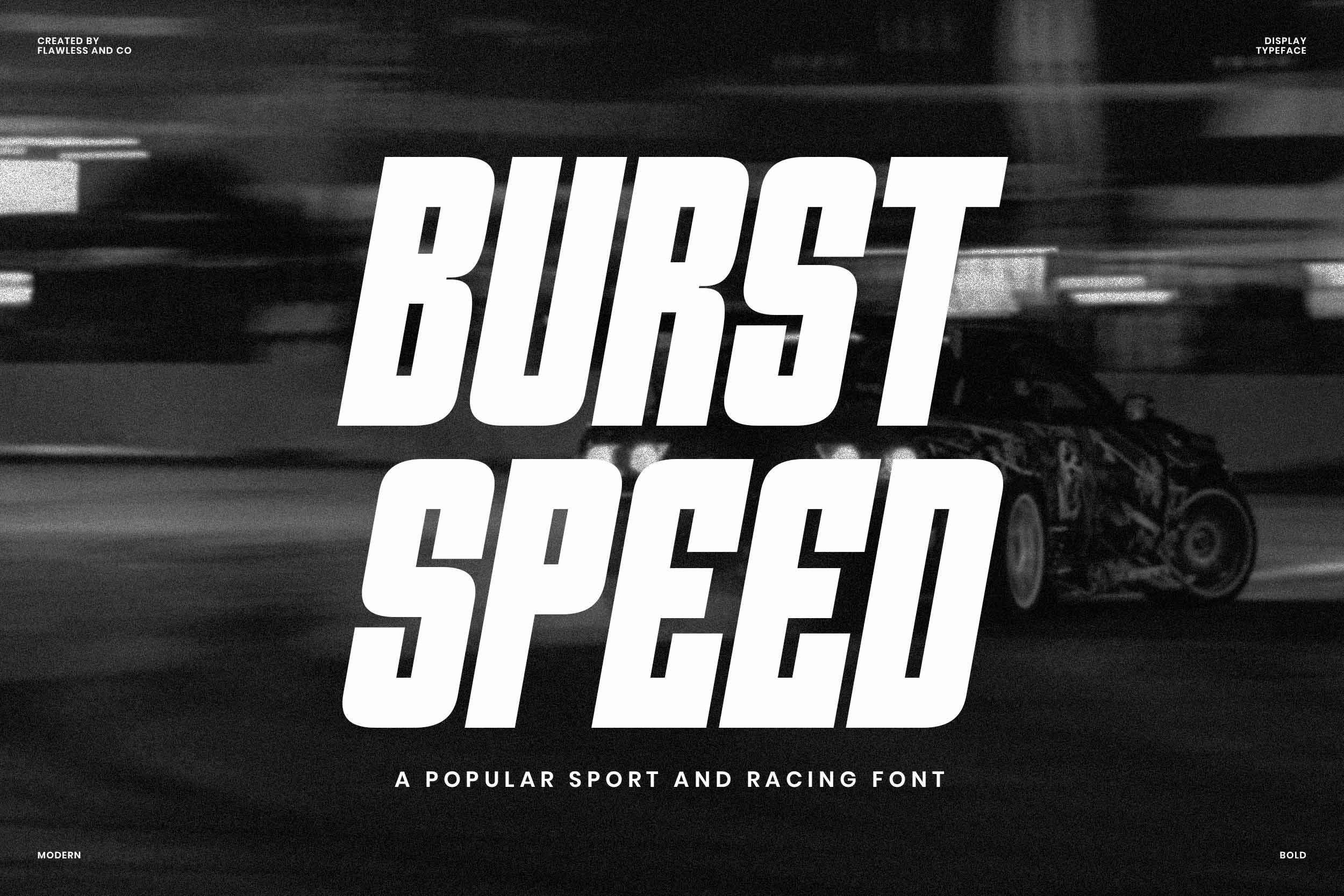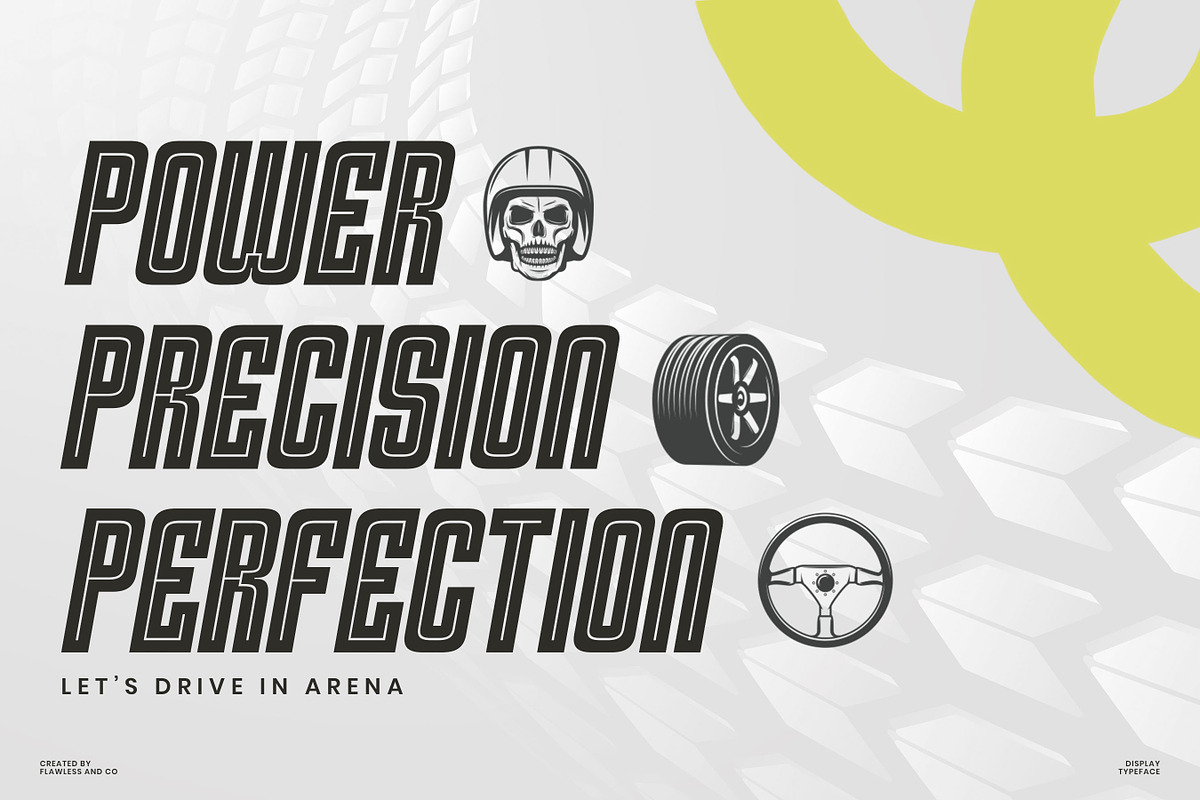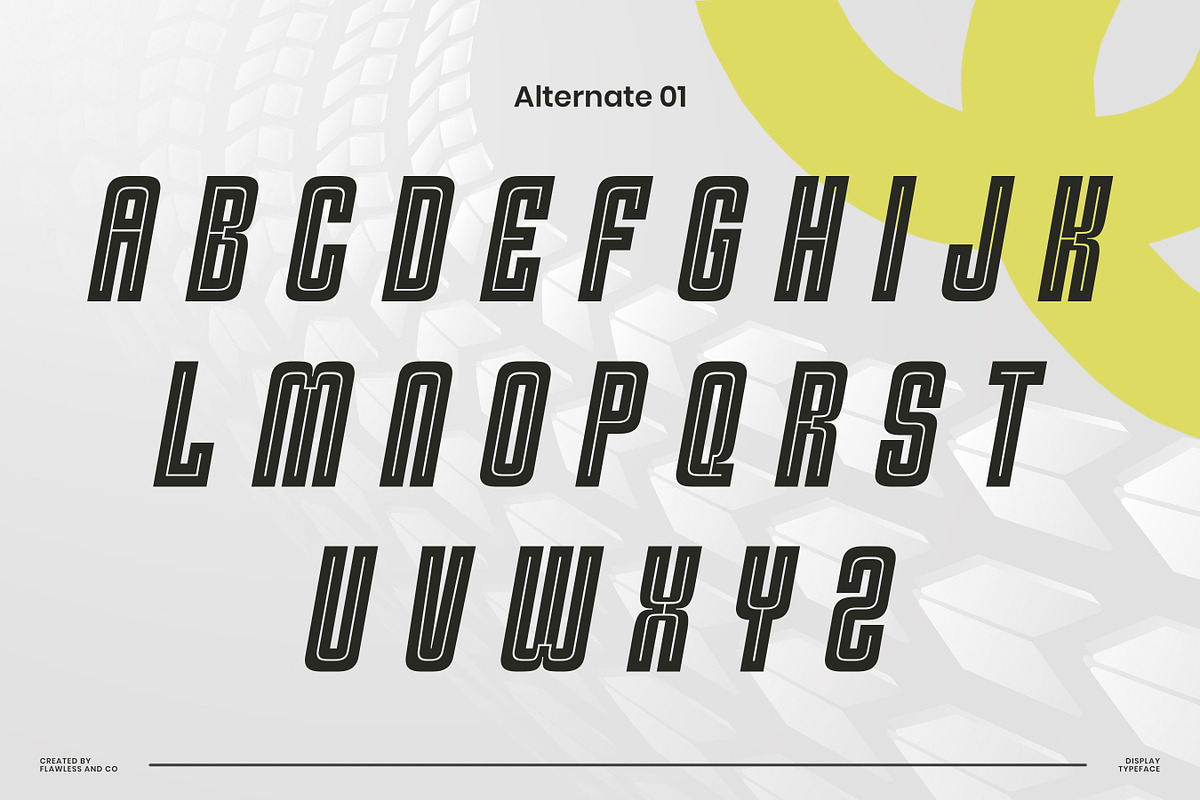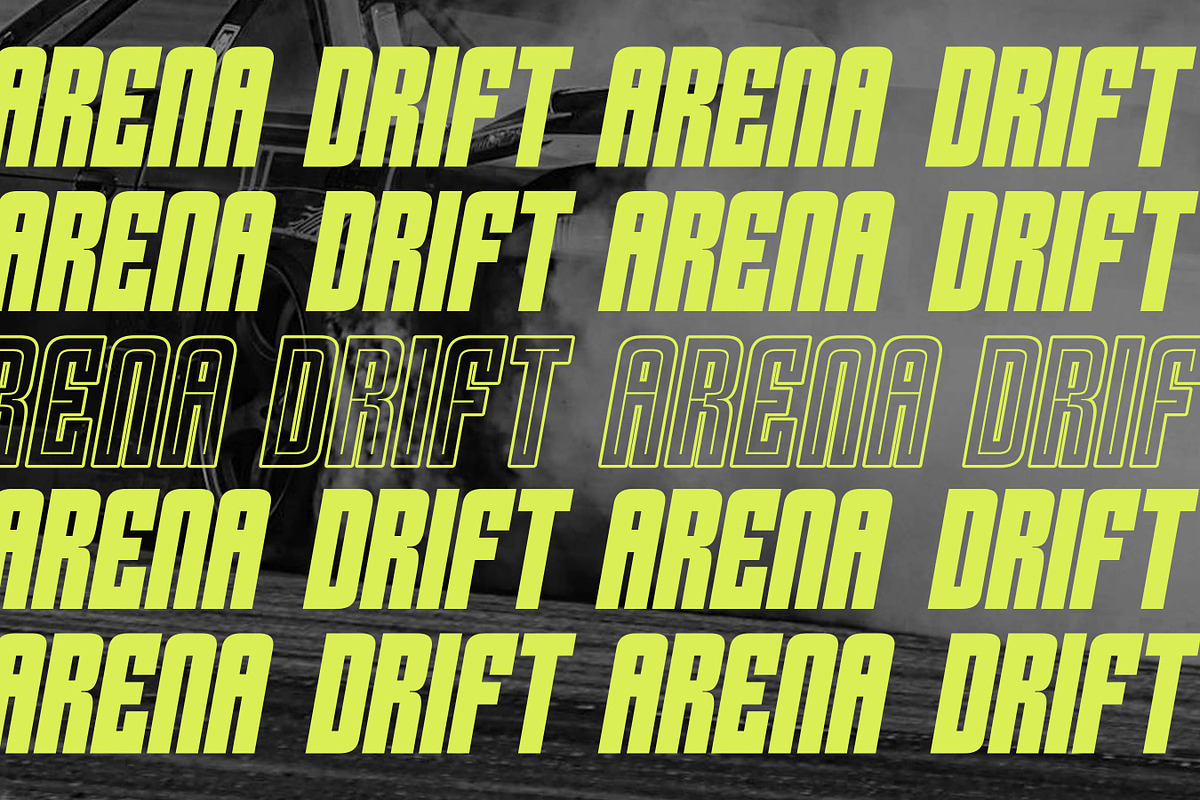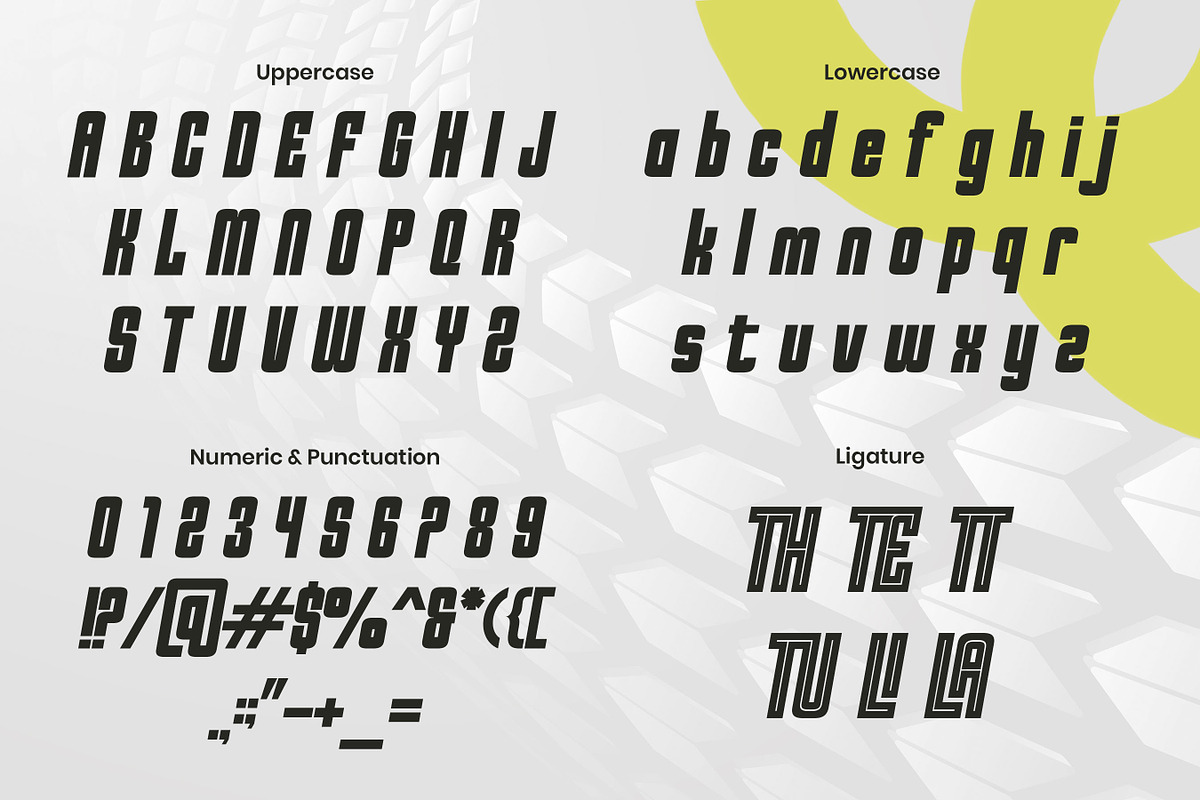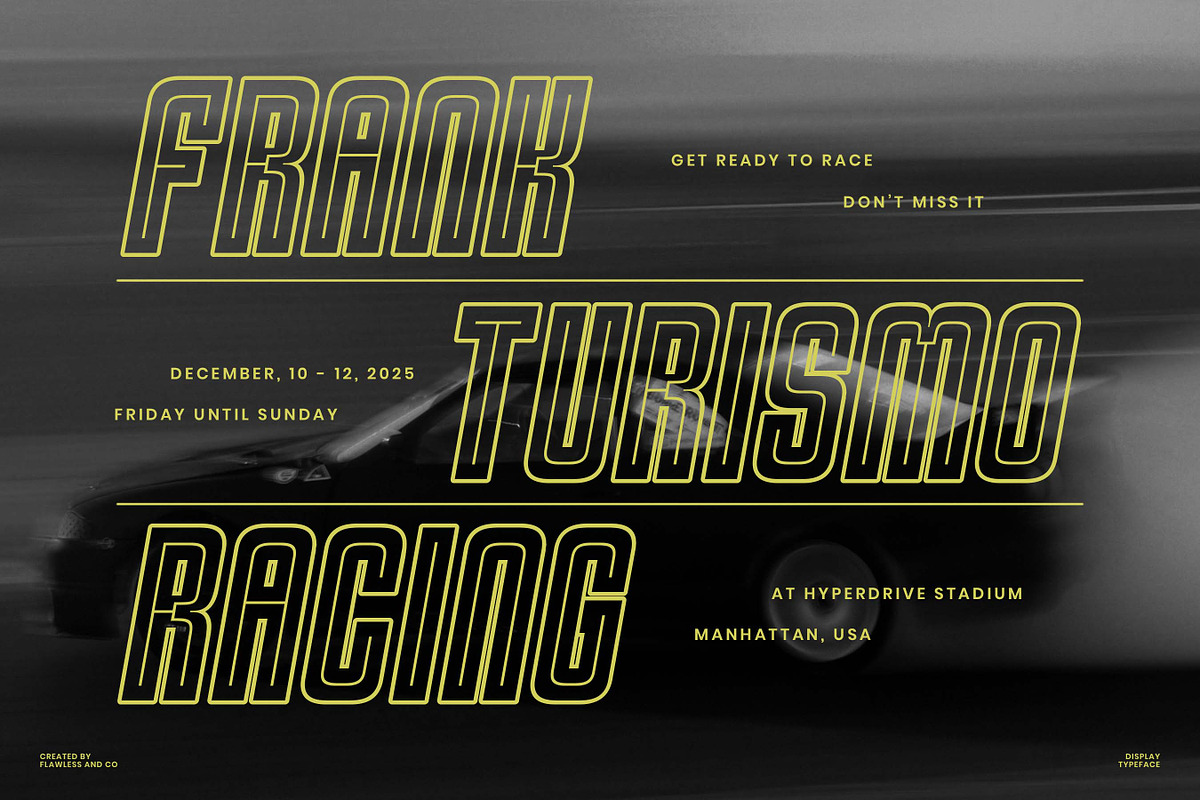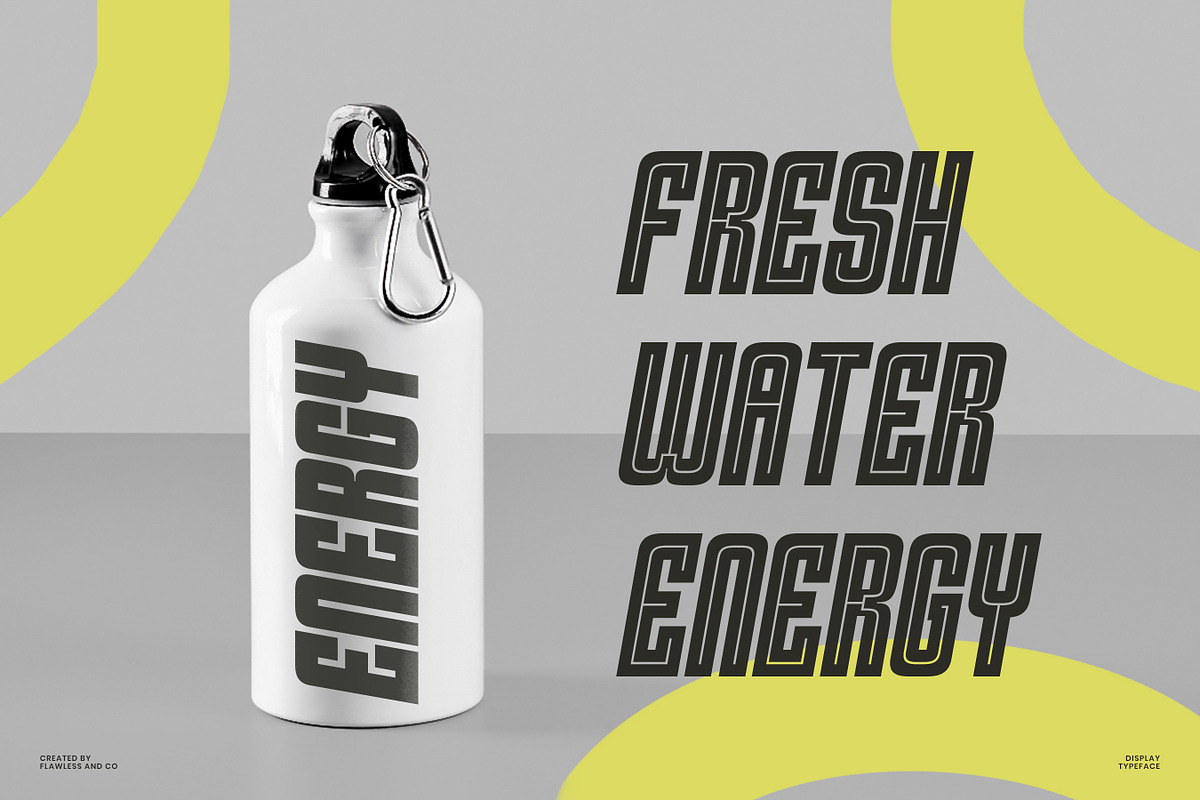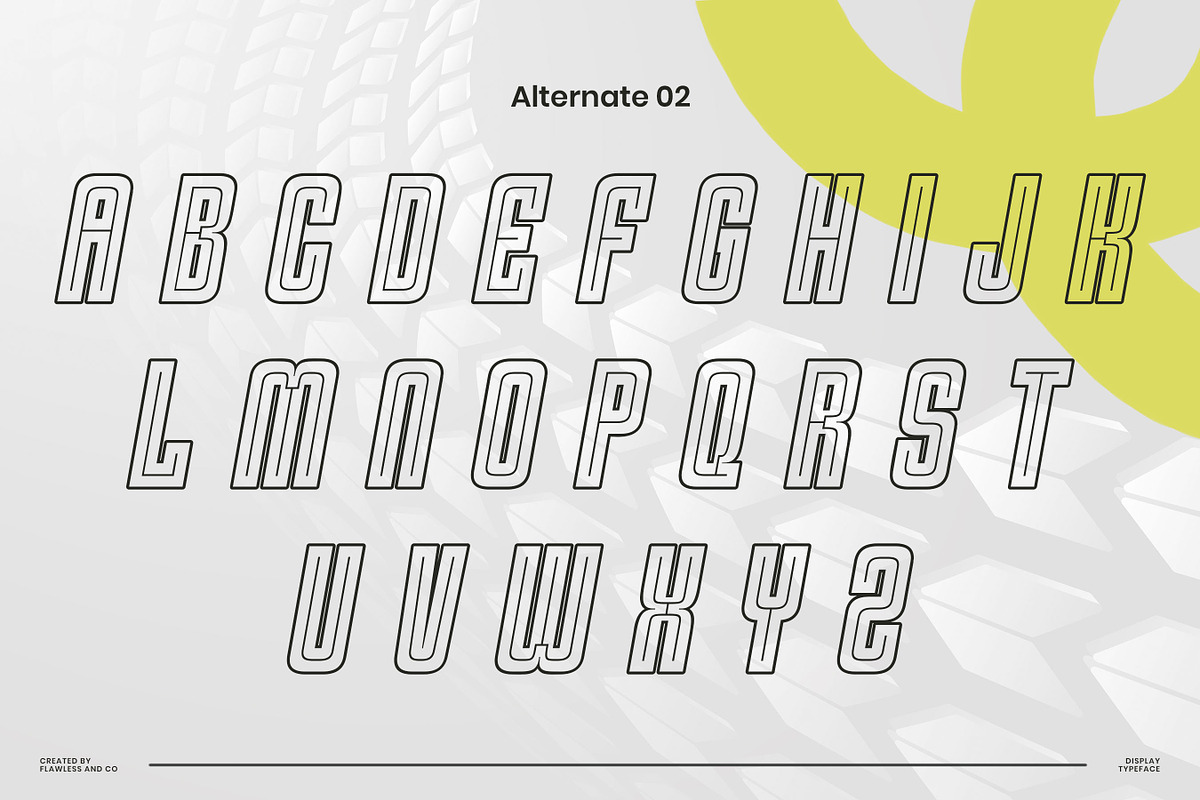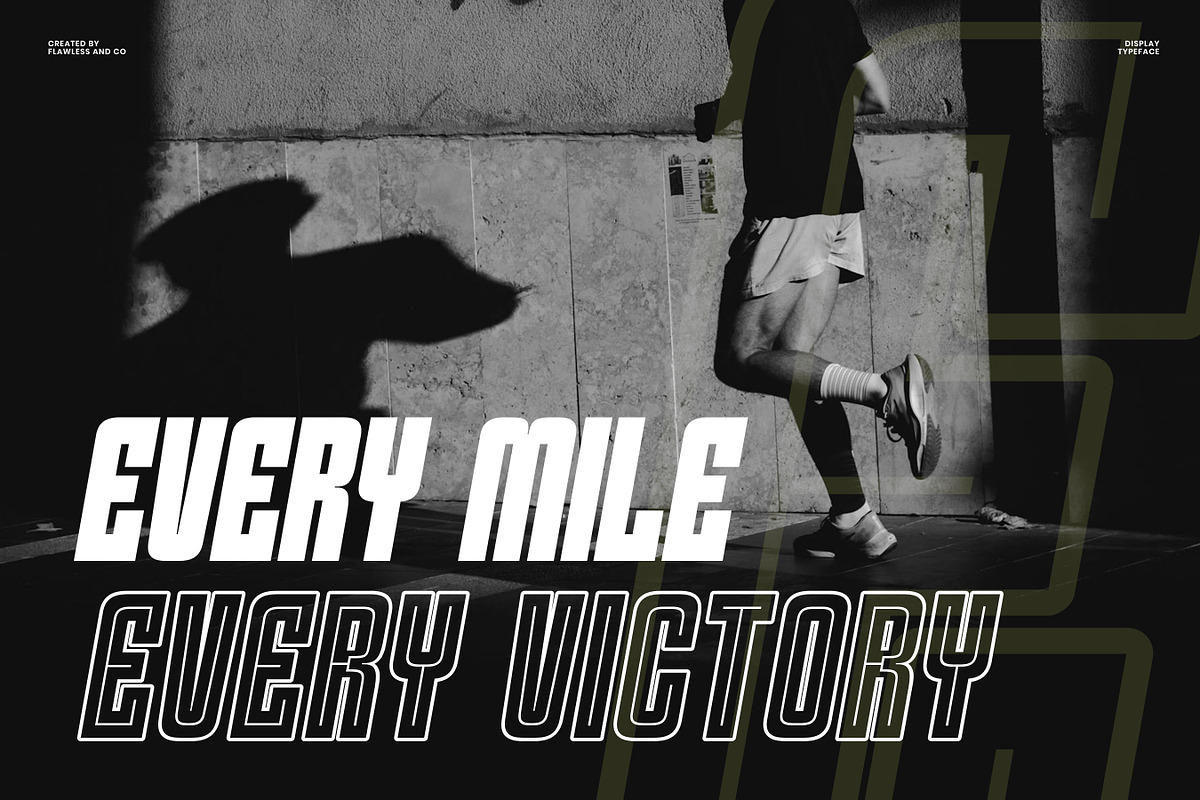
Burst Speed - Sports Sans Serif Font
Burst Speed - A Popular Sport and Racing Font
Burst Speed — a high-octane display font built for those who live fast and drive harder. Inspired by the intensity of racetracks and the pulse of modern motorsport, Burst Speed fuels your design with bold presence and aerodynamic style.With sharp cuts, strong verticals, and a slanted structure, Burst Speed brings velocity to your headlines, logos, event posters, and sports branding. Whether it's for drifting tournaments, F1 promotions, or athletic gear, this font shouts power, precision, and performance.
Burst Speed is equipped with:
- Regular & Outline versions
Push the limits of your design. Let’s drive in the arena.
Who Should Use Burst Speed
Burst Speed is perfect for designers, creators, and brands looking to inject speed, power, and bold energy into their visuals. Whether you're working on:
- Racing team identities
- Sports apparel branding
- Automotive event posters
- Drift or F1 promos
- Game titles or YouTube thumbnails
This font is your go-to weapon for standing out with style and motion.
A Must-Have Font for Sport and Brand Creators & Designers
Burst Speed is more than just a font — it's built for adrenaline. Designed for creators and designers who thrive in high-energy environments, this bold racing typeface brings power, speed, and precision to your visuals. Perfect for sports branding, team merch, posters, and dynamic logos, Burst Speed fuels your designs with unstoppable momentum.
Why Choose Burst Speed for Sport, Brand, and Logo Projects?
Because your designs deserve to move fast and hit hard. Burst Speed was made for creators who want to communicate power, precision, and motion. Its aerodynamic structure and sharp energy make it ideal for sports branding, racing promotions, and impactful logos. Whether you're designing for a professional team, a fitness brand, or a high-speed event, Burst Speed gives your visuals the competitive edge they need to stand out and perform.